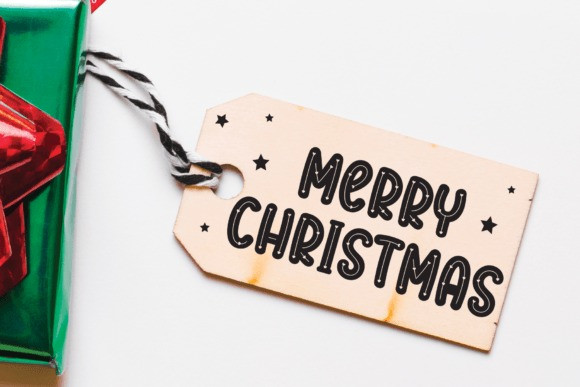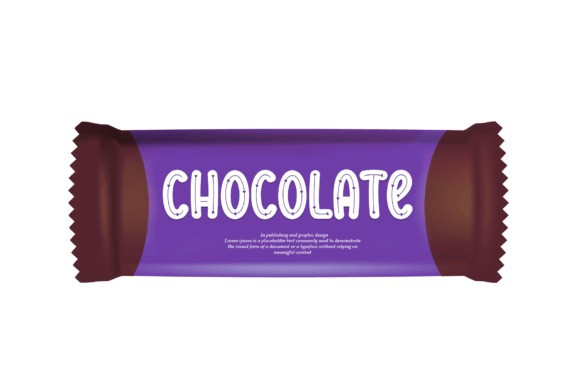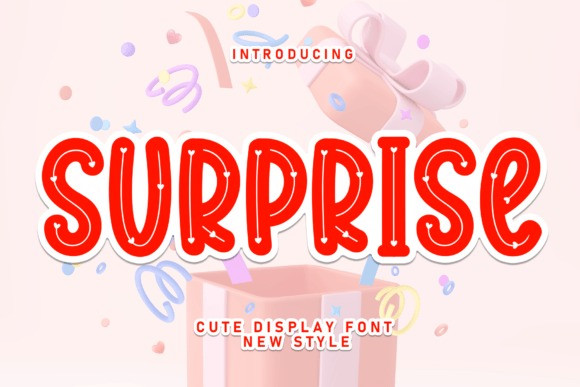
Surprise Display Font
Surprise Display Font is a sweet and friendly display font. Its natural and unique style makes it incredibly fitting to a large pool of designs. The only limit is your imagination!